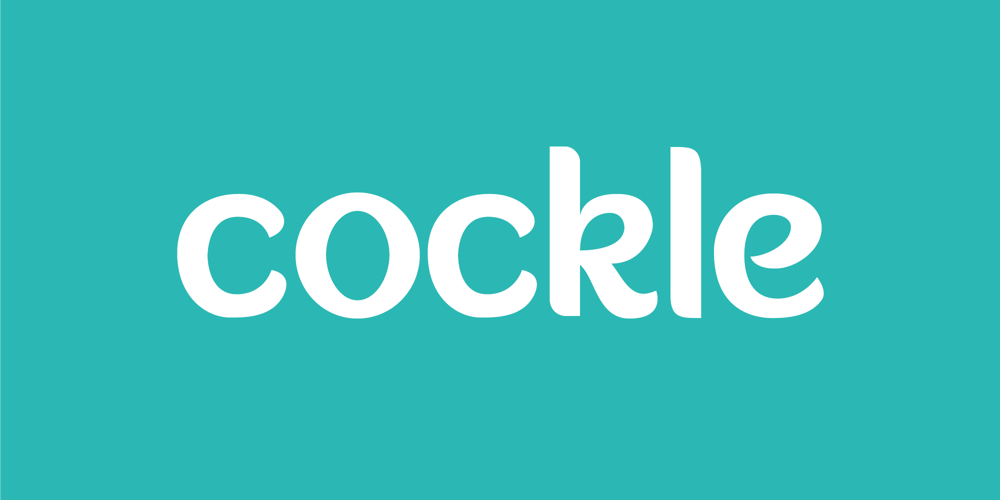
Cockle
Cockle font
Cockle Font Family was designed by Emily Joy Rich and published by Joy Studio. Cockle contains 1 styles and family package options. This friendly rounded display typeface is perfect for headlines and logos, its gentle curves and comfortable corners are reminiscent of forms found in nature. Inspired by the shapes found in leaves – soft curves forming gentle corners as they meet.Cockle pairs well with Arial for a body font.Includes over 500 characters; with Ligatures, small caps, old style figures, and mathematical symbols.